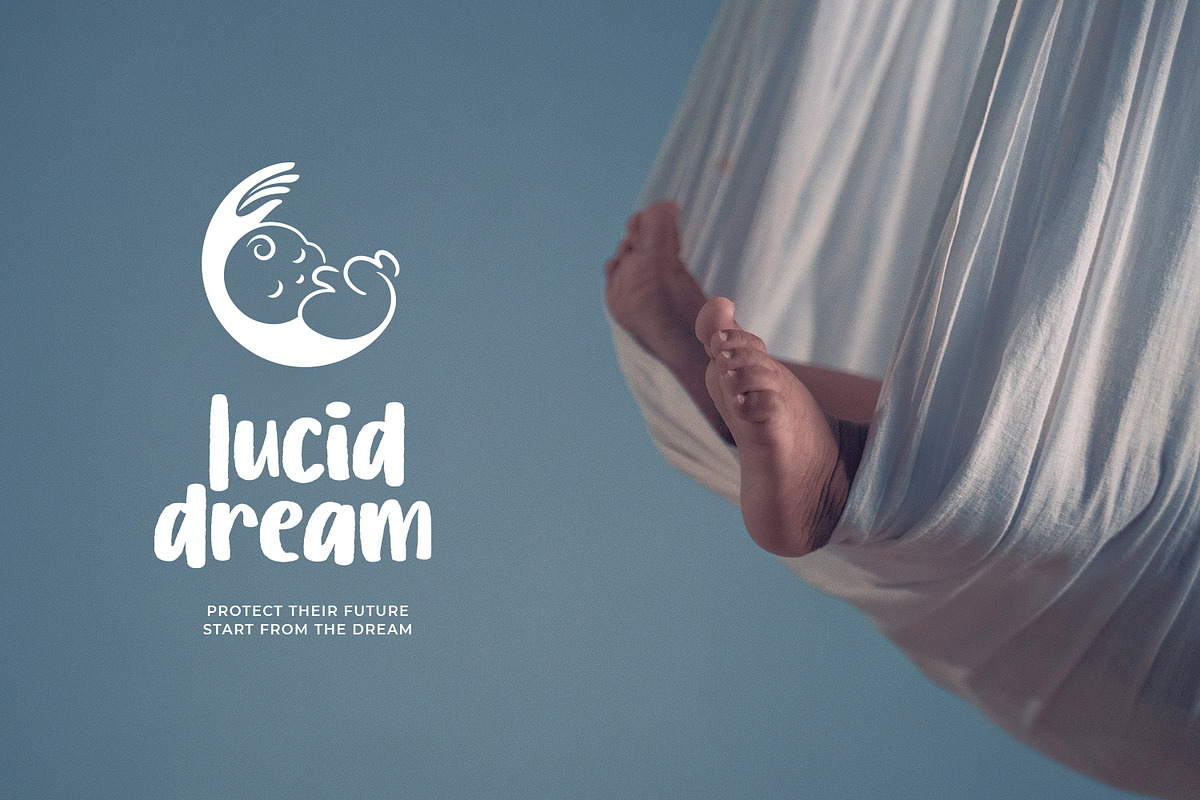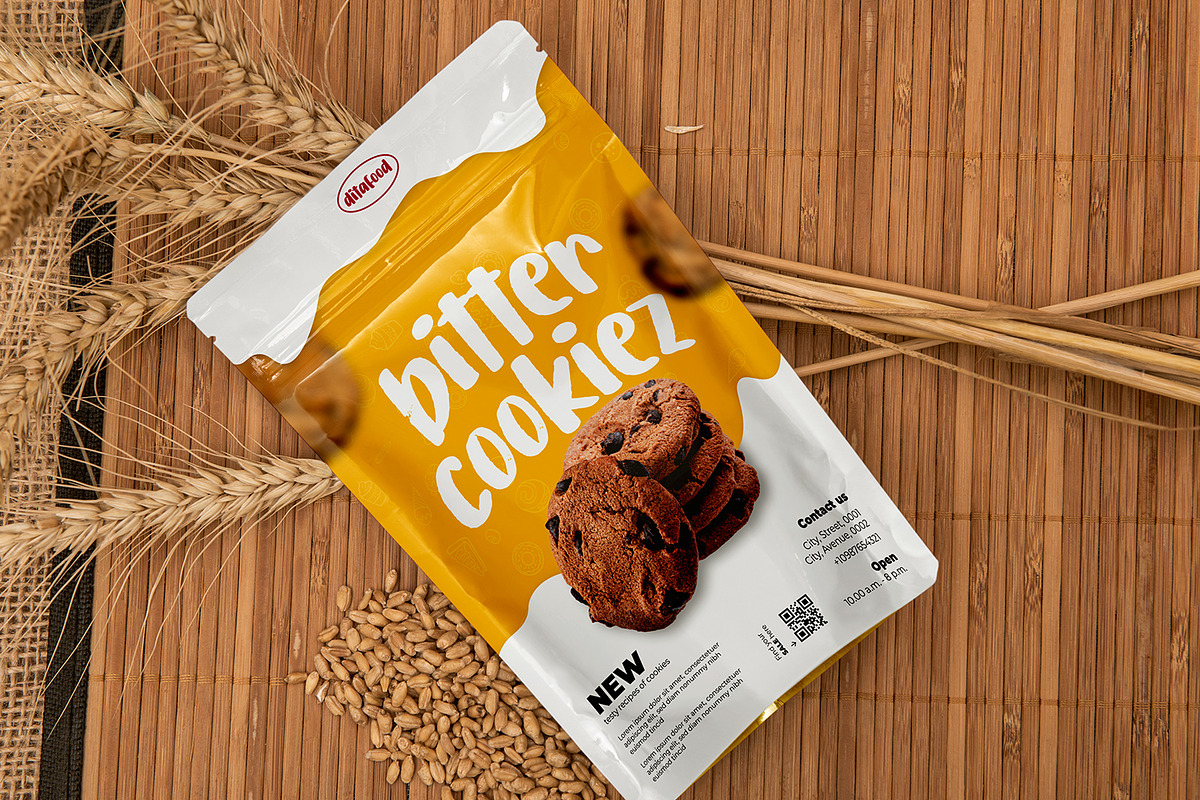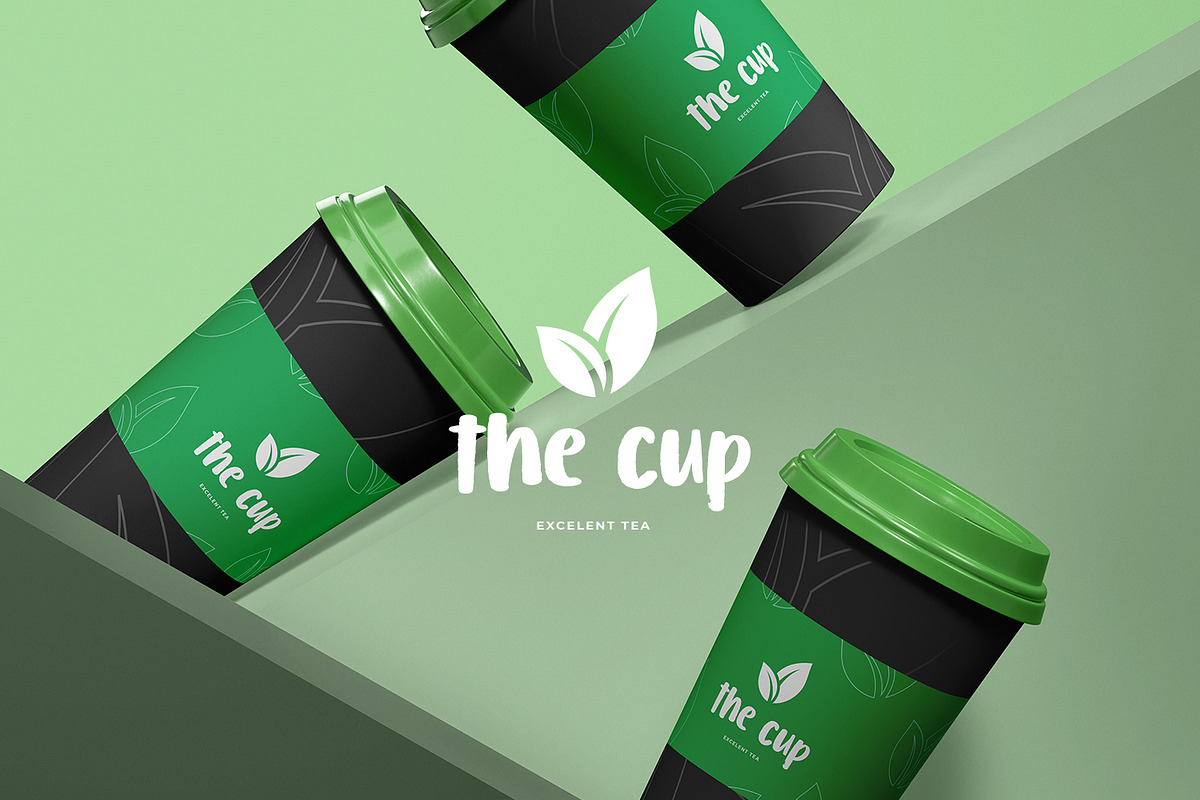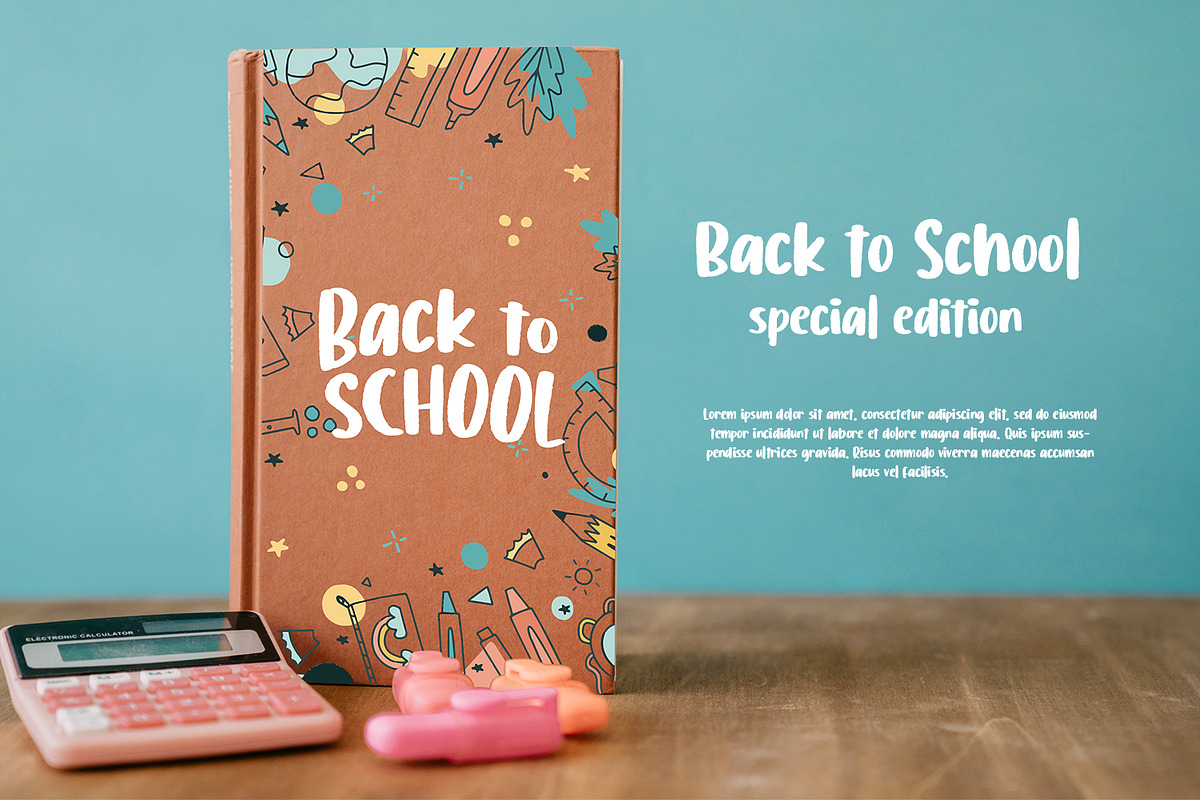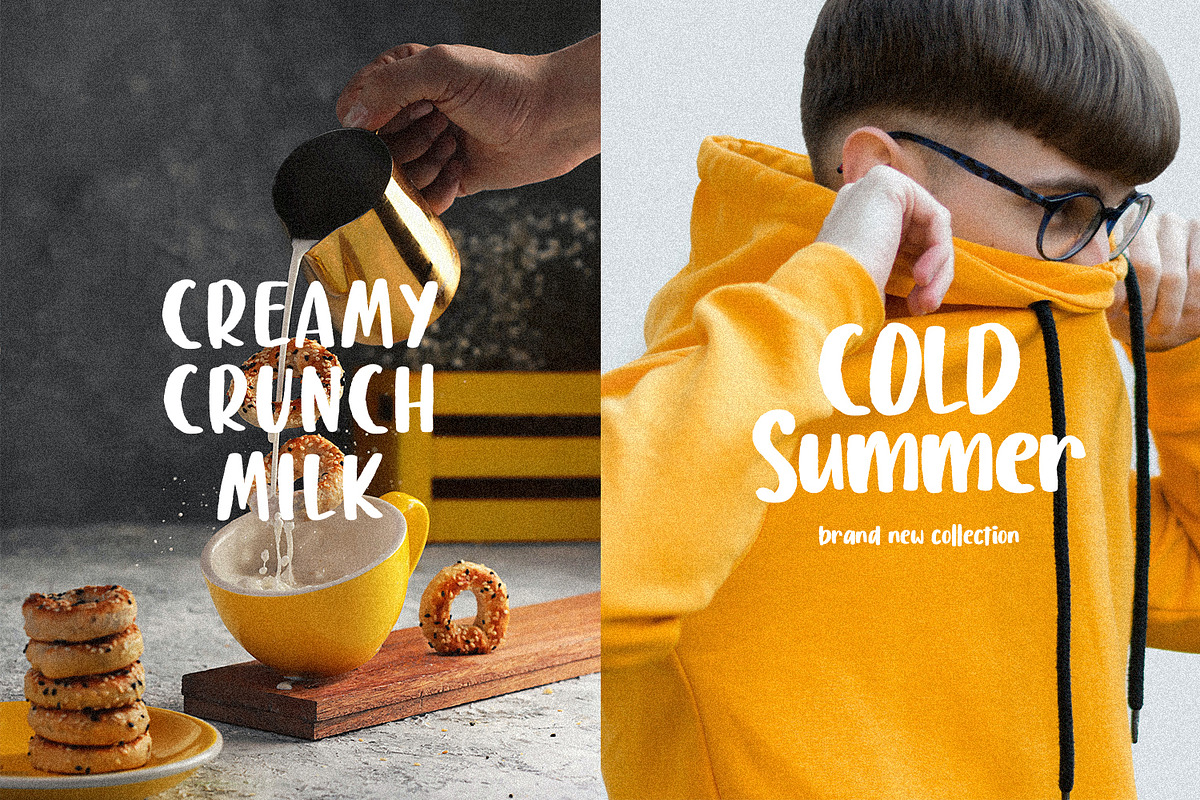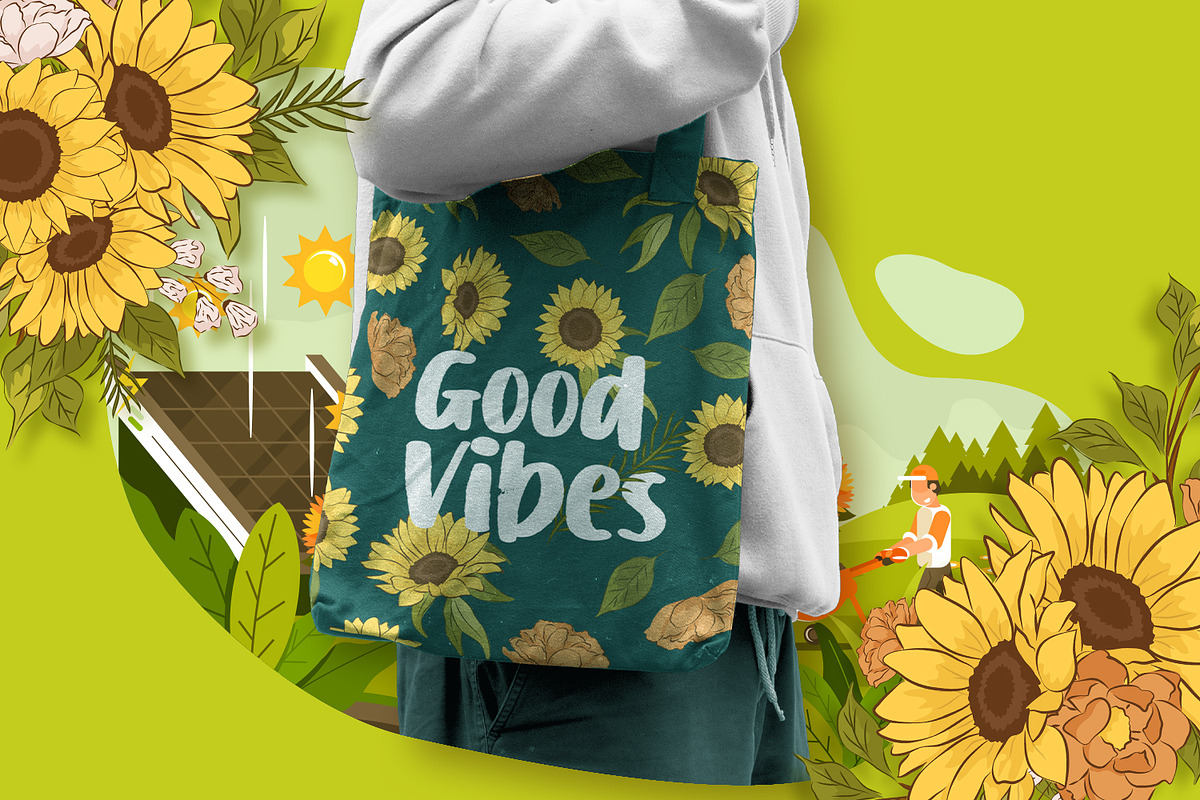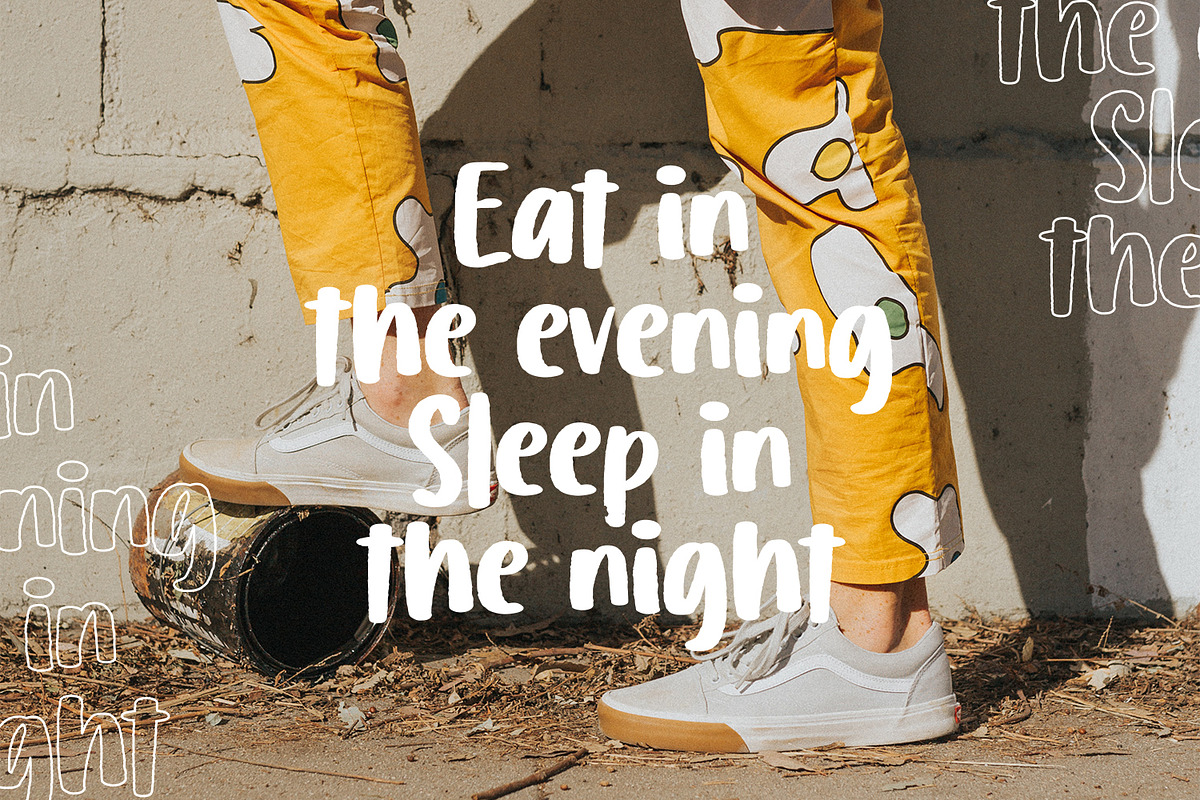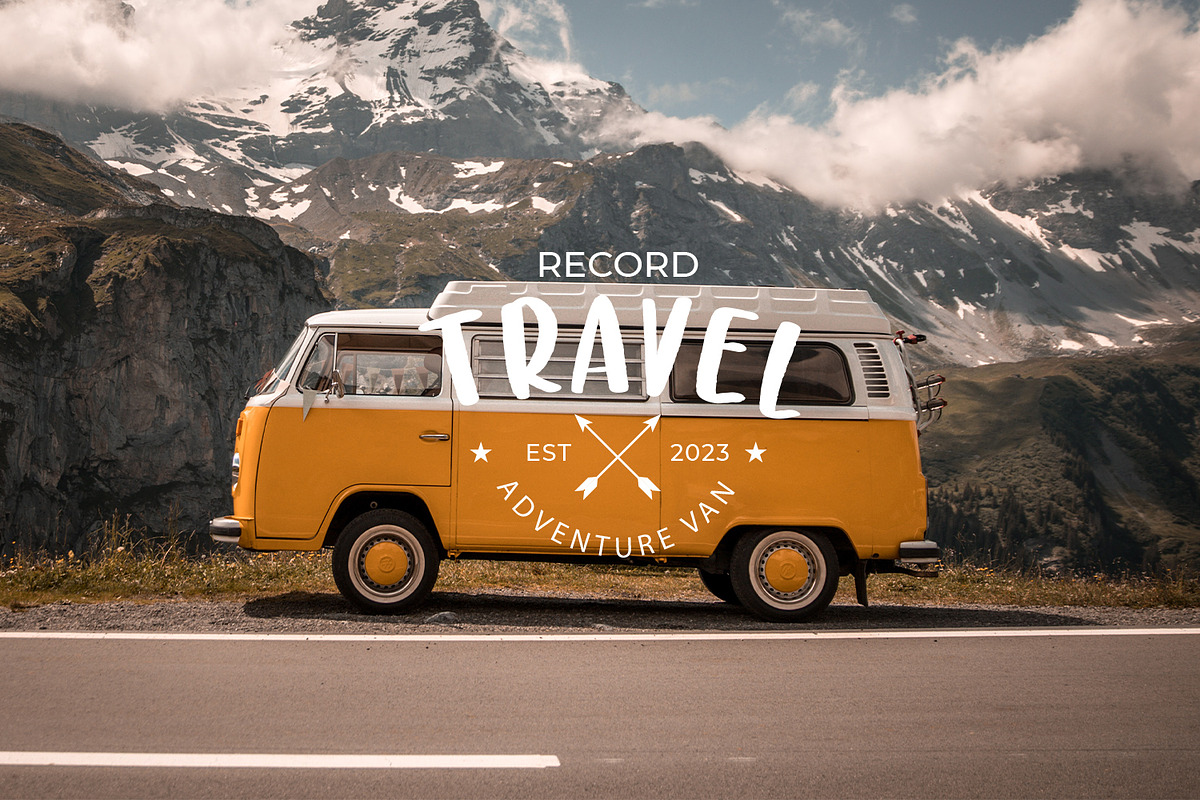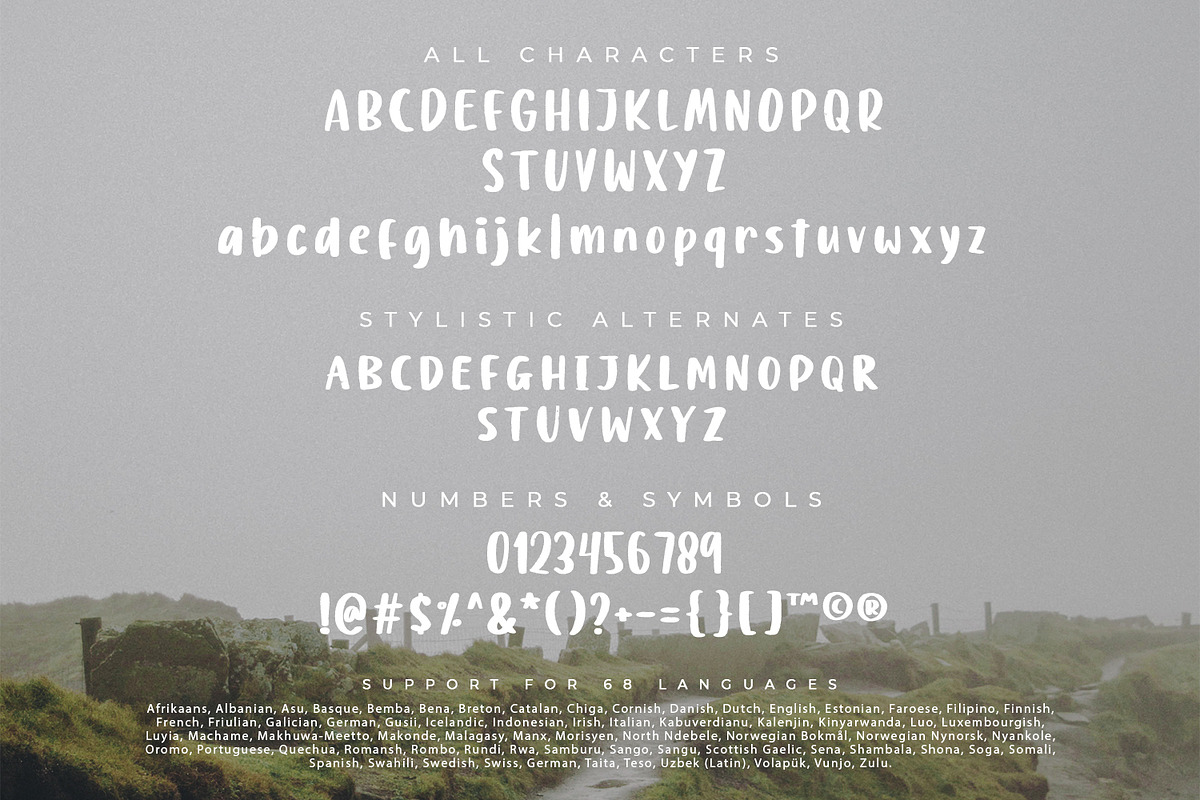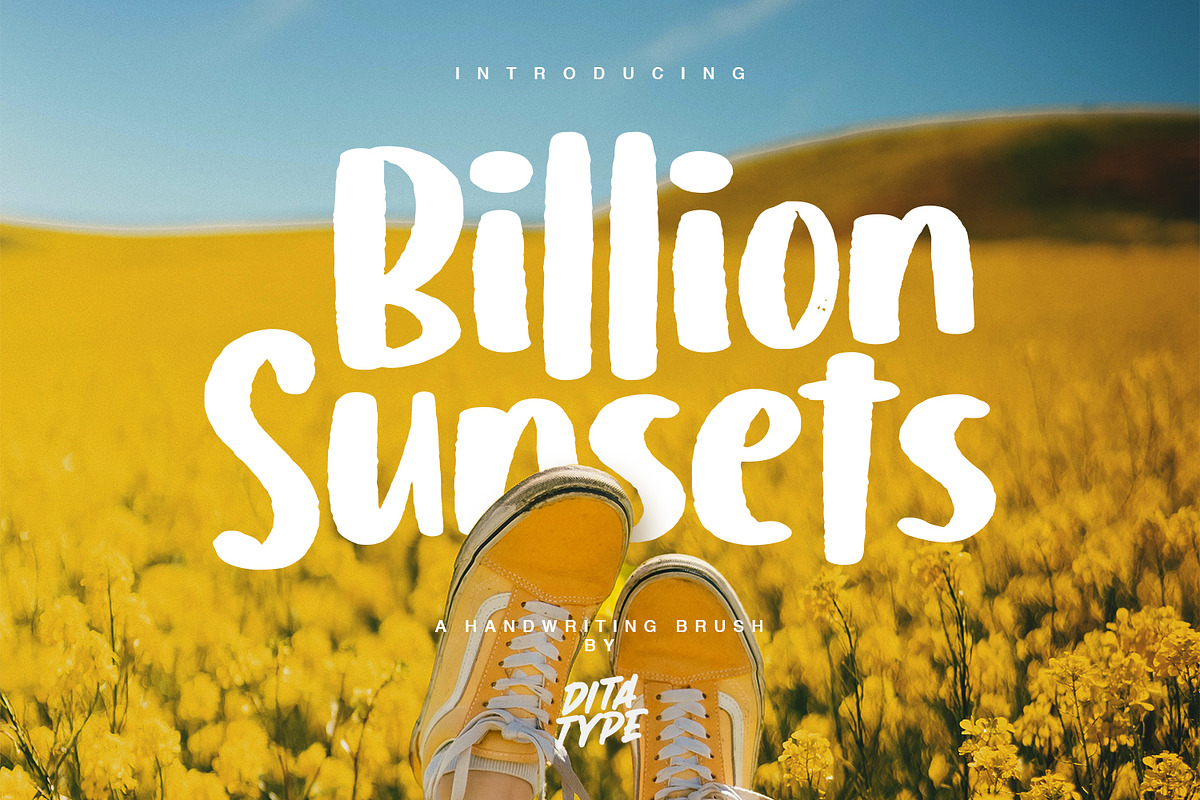
Billion Sunsets
Billion Sunsets is a font that describes artistic, brave aesthetic in strong hand touches. Each letter looks as if it was made with a brush. The shapes are usually round in smooth, flowing curves similar to circle brush scratches in low contrasts to express smoothness and warmth to the font. The prominent letters also express strength, the thick, firm lines show courage and bravery producing attractiveness and courage. Fortunately, you may use this font for any text sizes, and enjoy the available features here as well.
Billion Sunsets fits best for any design projects requiring artistic touches such as titles, logos, posters, and other attractive, strong designs. Besides, this script font is applicable for social media, merchandise, posters, and packaging for its elegant displays. Find out more ways to use this font by taking a look at the font preview.